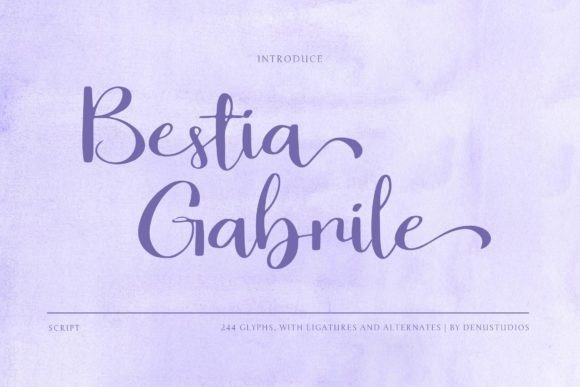
Introducing Bestia Gabrile Font: A Stylish and Unique Script Font
Are you looking for a font that can add a touch of elegance and sophistication to your creative projects? Look no further than Bestia Gabrile, a stunning script font that is sure to captivate your audience. With its flowing, expressive letterforms, Bestia Gabrile balances contemporary flair with classic elegance, making it the perfect choice for conveying individuality and grace.
The Characteristics of Bestia Gabrile Font
Bestia Gabrile is a script font that boasts a range of characteristics that set it apart from other fonts. Its flowing, cursive letterforms are designed to evoke a sense of movement and fluidity, while its classic elegance ensures that it remains timeless and sophisticated. The font’s unique blend of modern and traditional elements makes it perfect for a wide range of creative projects, from invitations and branding to packaging and advertising.
What Makes Bestia Gabrile So Special?
So, what makes Bestia Gabrile so special? For starters, its unique and stylish design makes it stand out from the crowd. The font’s flowing letterforms are both elegant and expressive, making it perfect for conveying emotion and personality. Additionally, Bestia Gabrile is incredibly versatile, making it suitable for use in a wide range of creative projects.
The Benefits of Using Bestia Gabrile Font
There are many benefits to using Bestia Gabrile in your creative projects. For one, the font’s unique and stylish design is sure to grab the attention of your audience. Additionally, Bestia Gabrile is incredibly easy to read, making it perfect for use in body text as well as headlines. The font’s versatility is also a major benefit, as it can be used in a wide range of creative projects, from invitations and branding to packaging and advertising.
Perfect for Invitations, Branding, and Creative Projects
Bestia Gabrile is the perfect choice for a wide range of creative projects, including invitations, branding, and packaging. The font’s elegant and sophisticated design makes it perfect for use in:
- Invitations: Whether you’re planning a wedding, birthday party, or other special occasion, Bestia Gabrile is the perfect choice for your invitations.
- Branding: Bestia Gabrile’s unique and stylish design makes it perfect for use in branding, from logos to packaging.
- Creative Projects: Whether you’re working on a graphic design project, creating a website, or developing a marketing campaign, Bestia Gabrile is the perfect choice.
How to Use Bestia Gabrile Font
Using Bestia Gabrile in your creative projects is easy. Here are a few tips to get you started:
- Pair Bestia Gabrile with a sans-serif font for a modern and stylish look.
- Use Bestia Gabrile as a headline font to add a touch of elegance and sophistication.
- Experiment with different colors and textures to add depth and interest to your design.
In conclusion, Bestia Gabrile is a stylish and unique script font that is sure to add a touch of elegance and sophistication to your creative projects. With its flowing, expressive letterforms and classic elegance, Bestia Gabrile is perfect for conveying individuality and grace. Whether you’re working on an invitation, branding project, or creative project, Bestia Gabrile is the perfect choice.
Here are a few frequently asked questions about Bestia Gabrile:
- What type of font is Bestia Gabrile?
- Is Bestia Gabrile easy to read?
Q: What type of font is Bestia Gabrile?
A: Bestia Gabrile is a script font.
Q: Is Bestia Gabrile easy to read?
A: Yes, Bestia Gabrile is incredibly easy to read, making it perfect for use in body text as well as headlines.